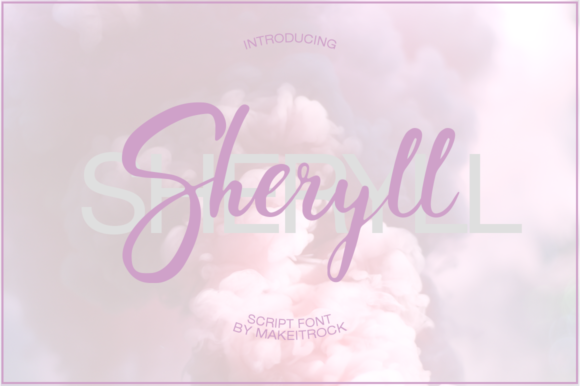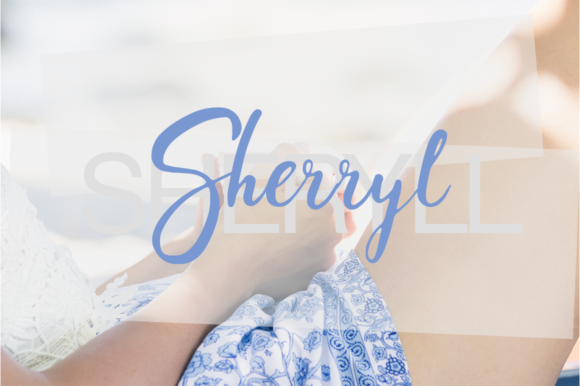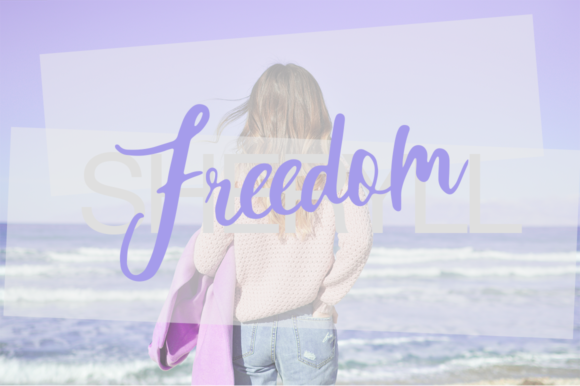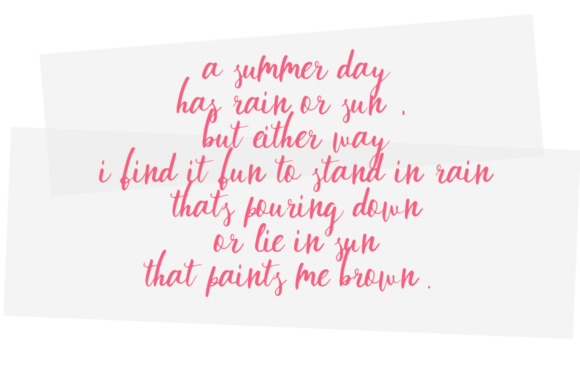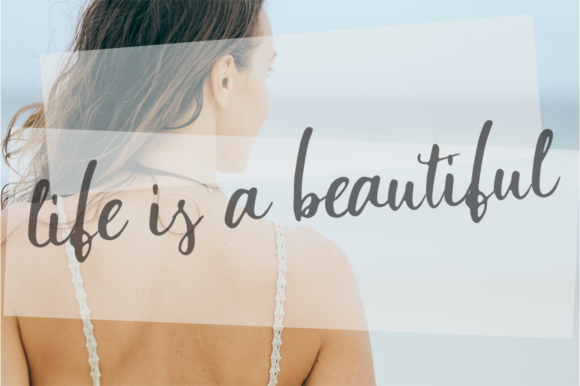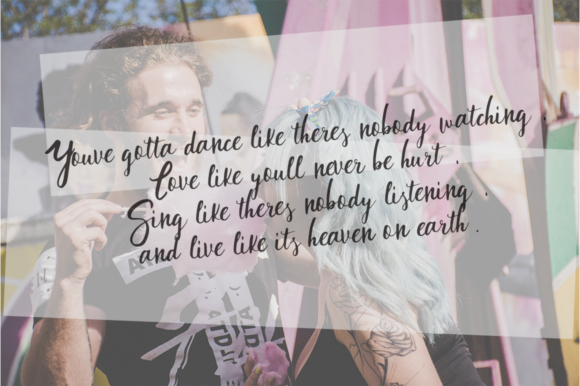
Sheryll Font
About Sheryll Font
Kingsland is a handwritten typeface with a feminine look. It can be used for various purposes such as: logos, headings, wedding invites,quotes, and every other design that needs a elegant feel.